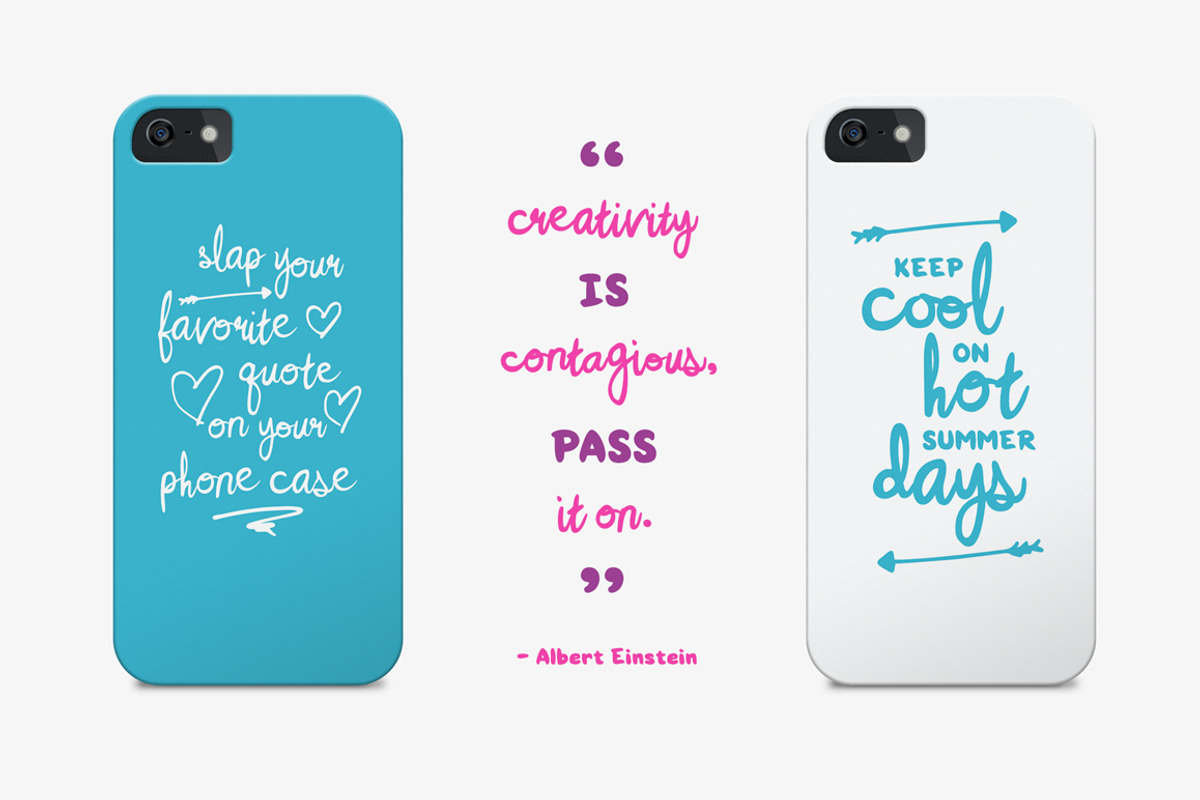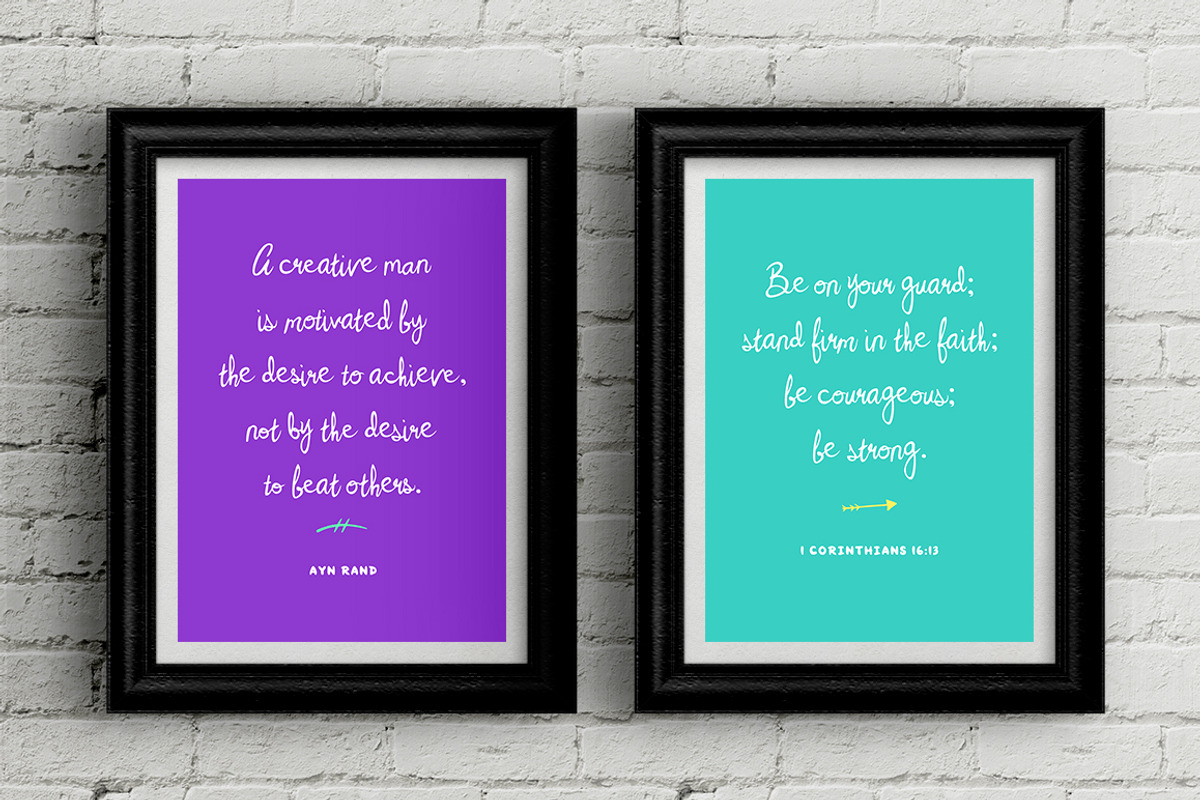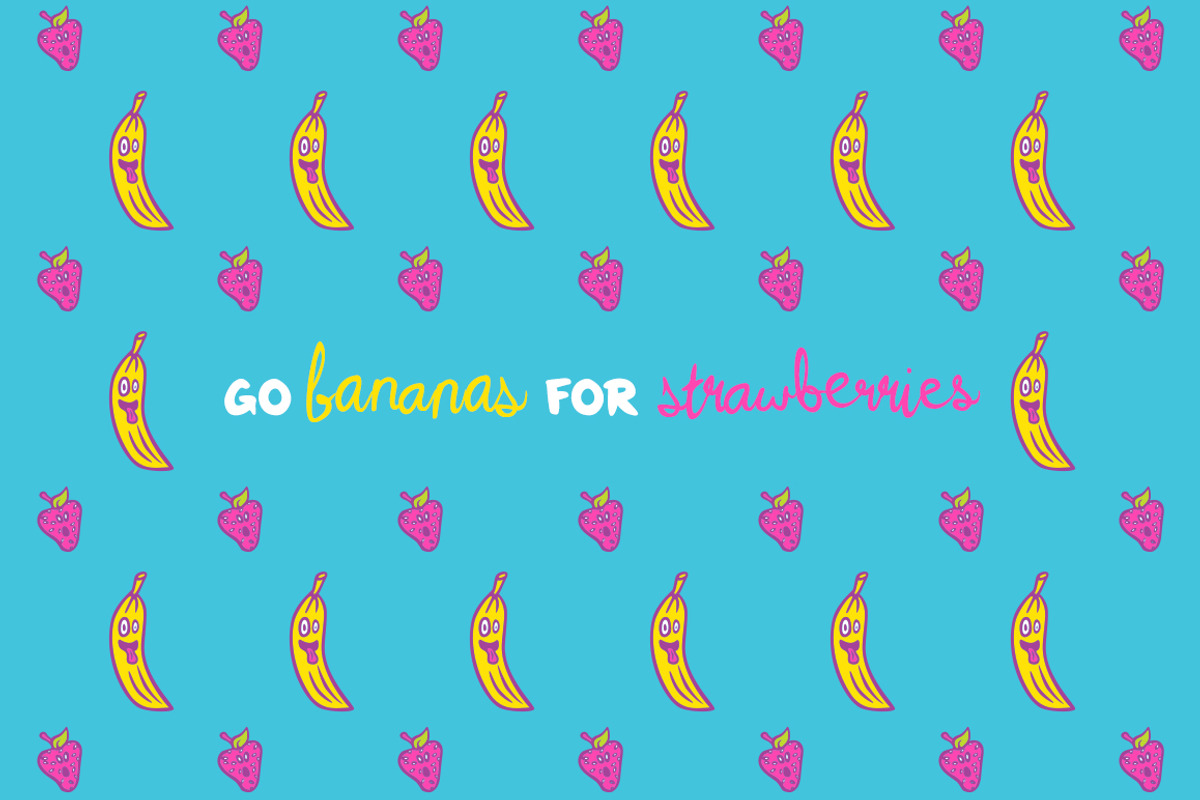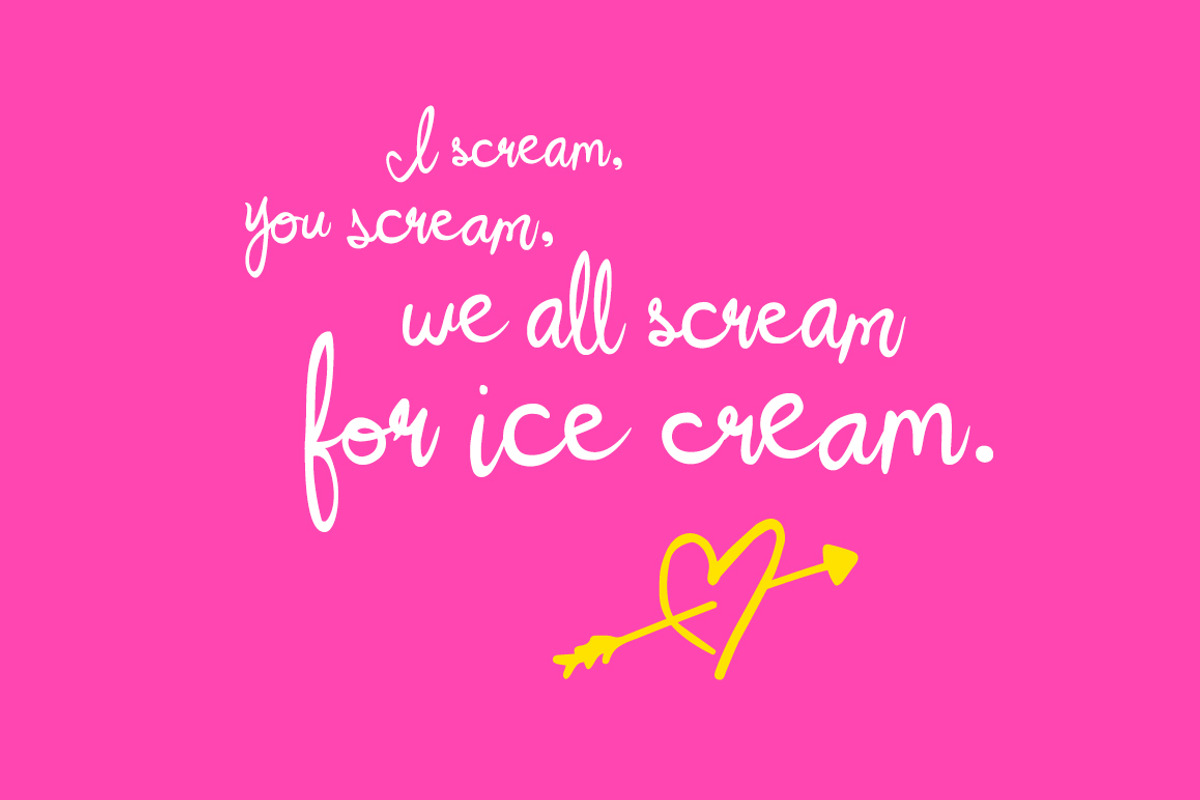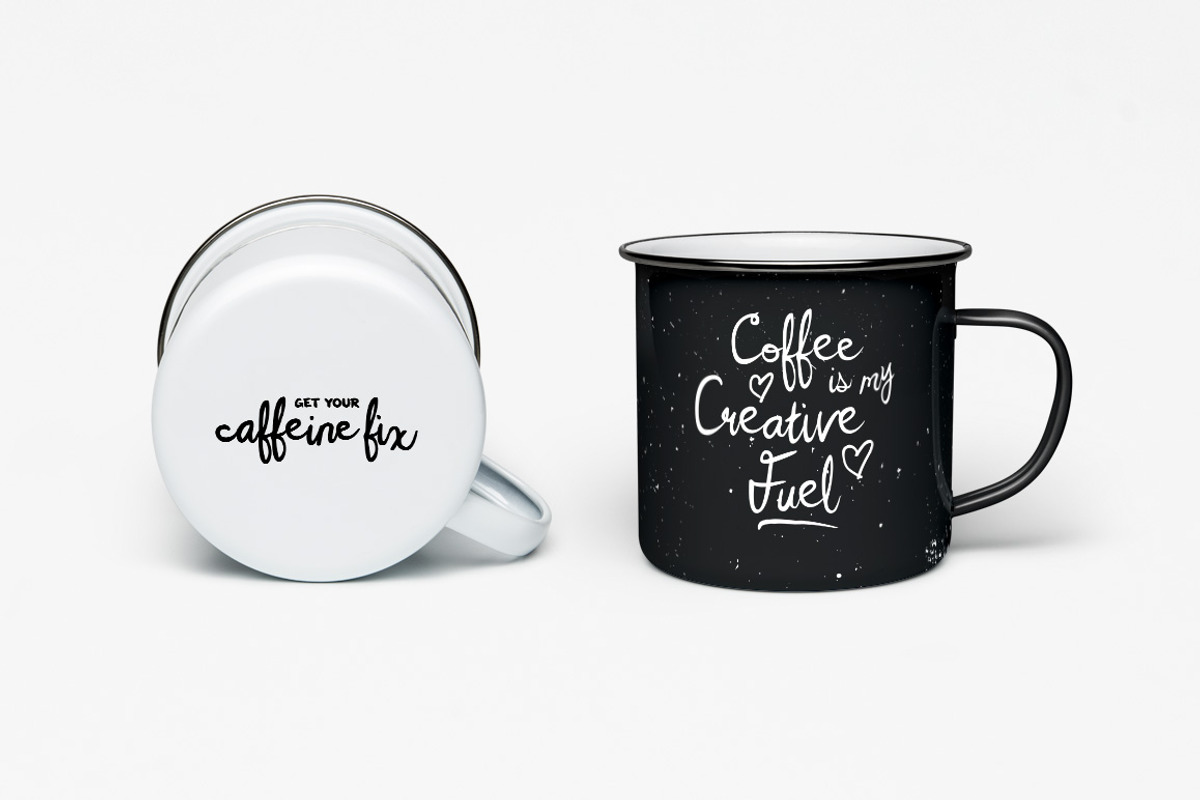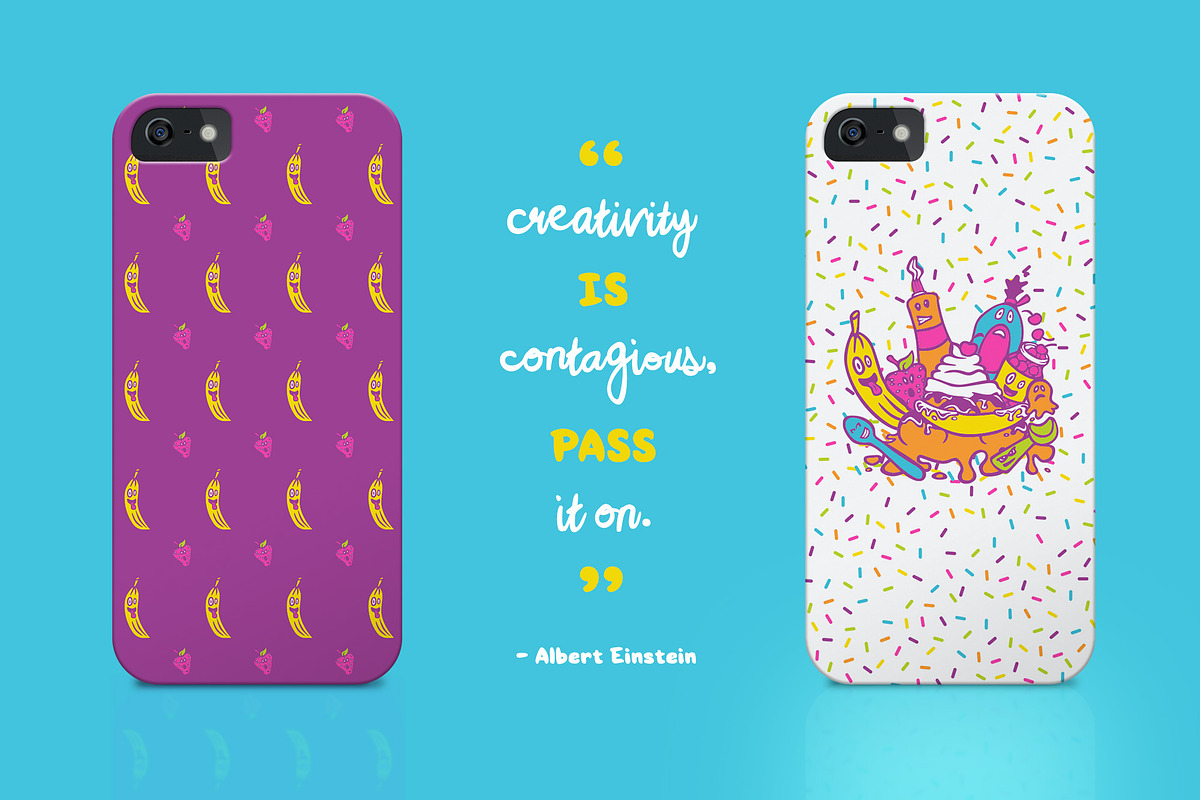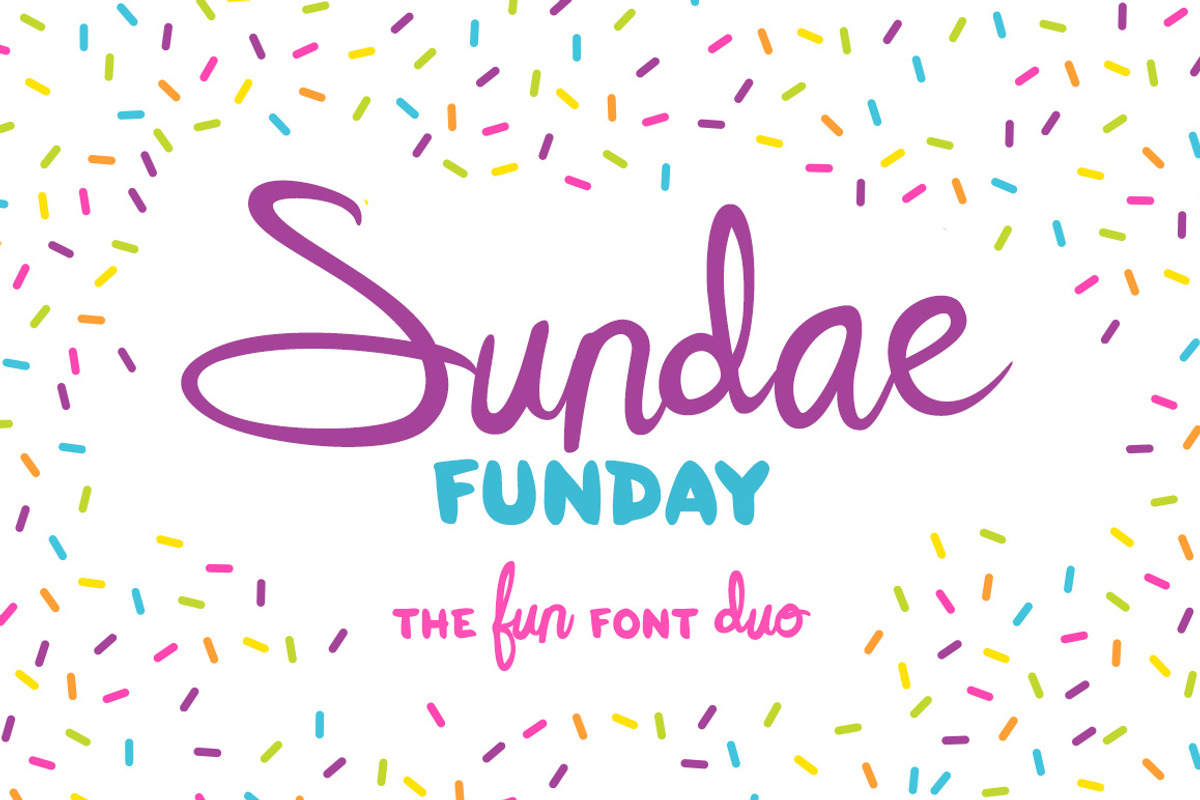
Sundae Funday Fonts & Graphics
Sundae Funday Fonts & Graphics by Scott Howard is a font selected for branding, posters, packaging, typography.
- The pack contains a fresh and playful font duo.
- It also contains ice cream vector illustrations because who doesn't love ice cream?!
- Fonts (otf and ttf formats of each): Sundae Funday Script - includes, two sets of uppercase and lowercase letters, ligatures, international
- Sundae Funday Script Bold - includes, two sets of uppercase and lowercase letters, ligatures, international support, punctuation, and a wide
- Sundae Funday Display - full set of uppercase and lowercase letters, international support, punctuation, and a wide variety of extra charact
- Sundae Funday Decorative - includes hand drawn arrows, hearts, "xoxo", and swashes Graphic Illustrations (pdfs, .eps, .ai, .png files includ
- You can even make patterns out of the characters (see the banana and strawberry pattern on the iphone case in the preview images).
Why Sundae Funday Fonts & Graphics is worth a look
Sundae Funday Fonts & Graphics by Scott Howard fits naturally into Branding, posters, packaging, typography.